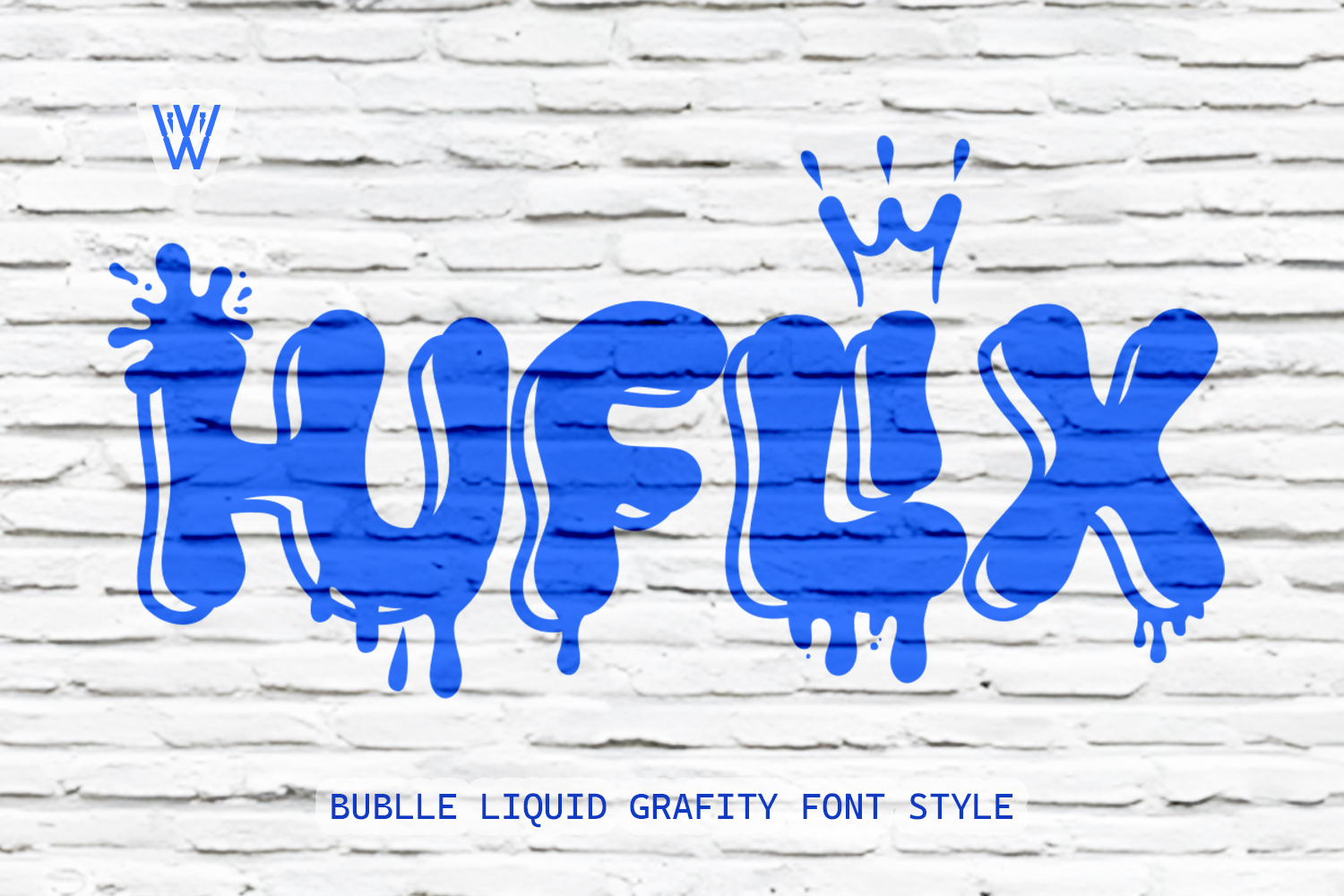
HUFLIX is a bold and playful bubble liquid font designed to bring fun and creativity into your projects. Its smooth, rounded, and fluid shapes make it perfect for designs that need a cheerful, vibrant, and eye-catching touch.
Add a splash of creativity to your work with HUFLIX – the bubble font that flows with fun!
Huflix